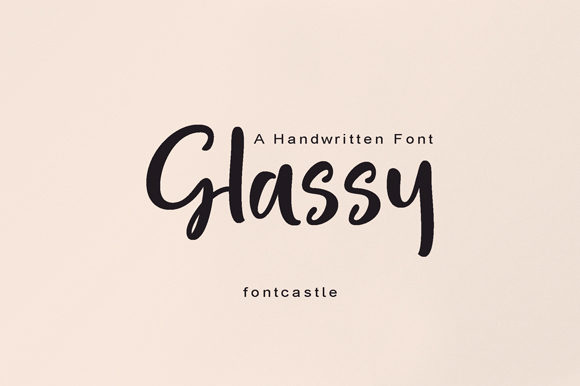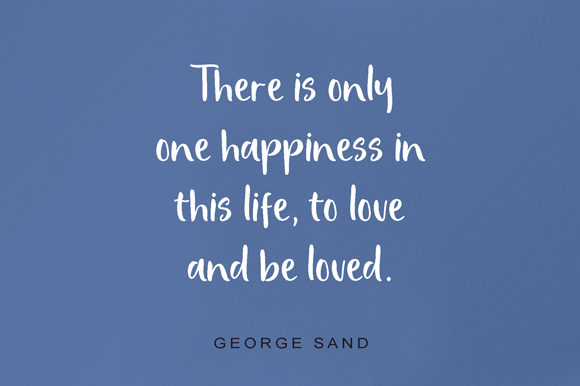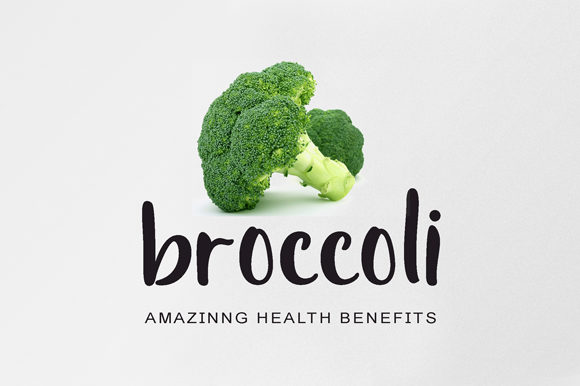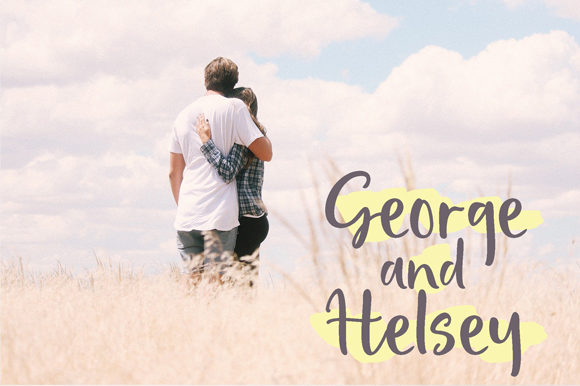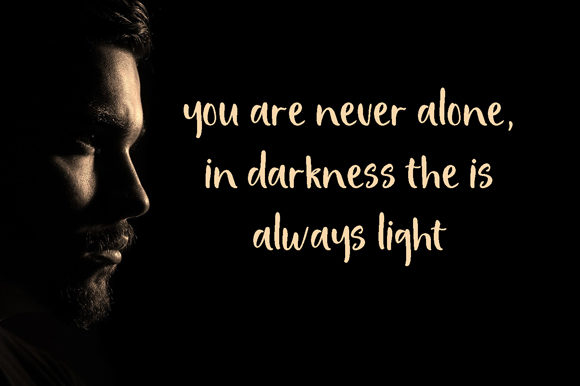
Glassy Font
About Glassy Font
Glassy is a bouncy handwritten font. It is defined by smooth curves and is perfect for fashion branding or editorial designs. Add it confidently to your projects, and you will love the results.